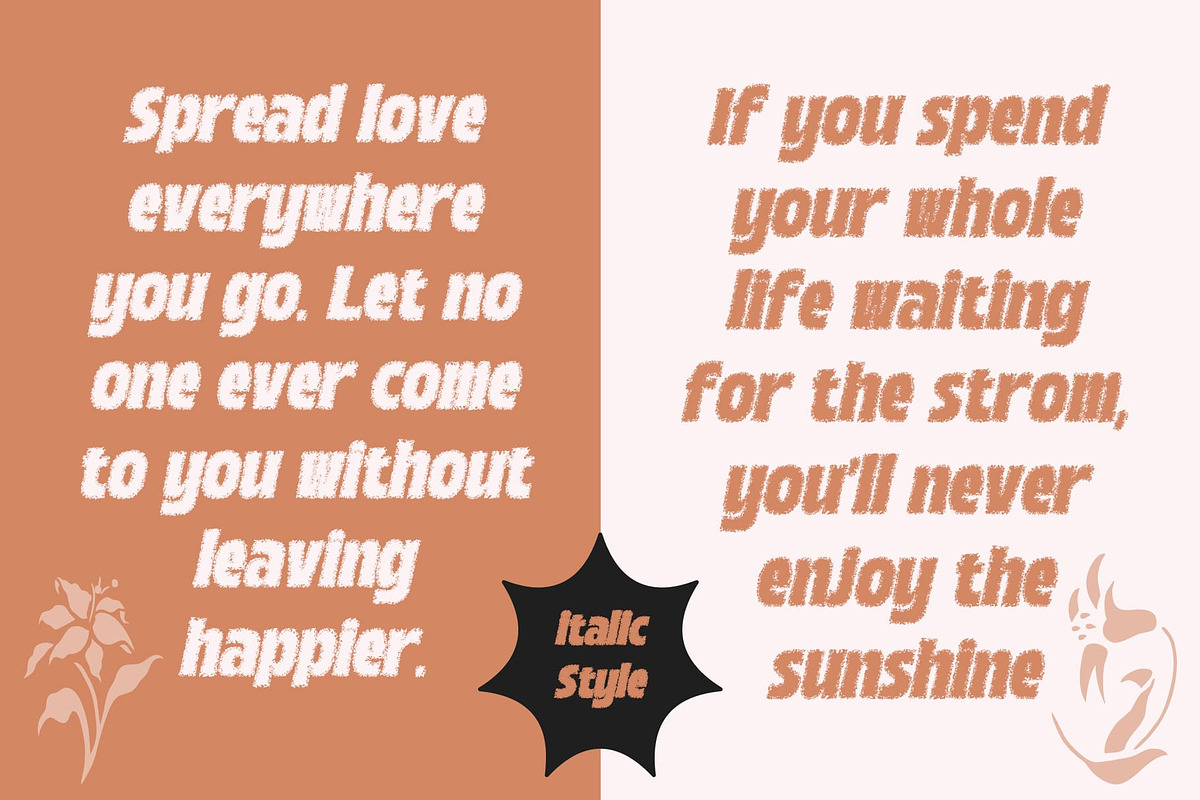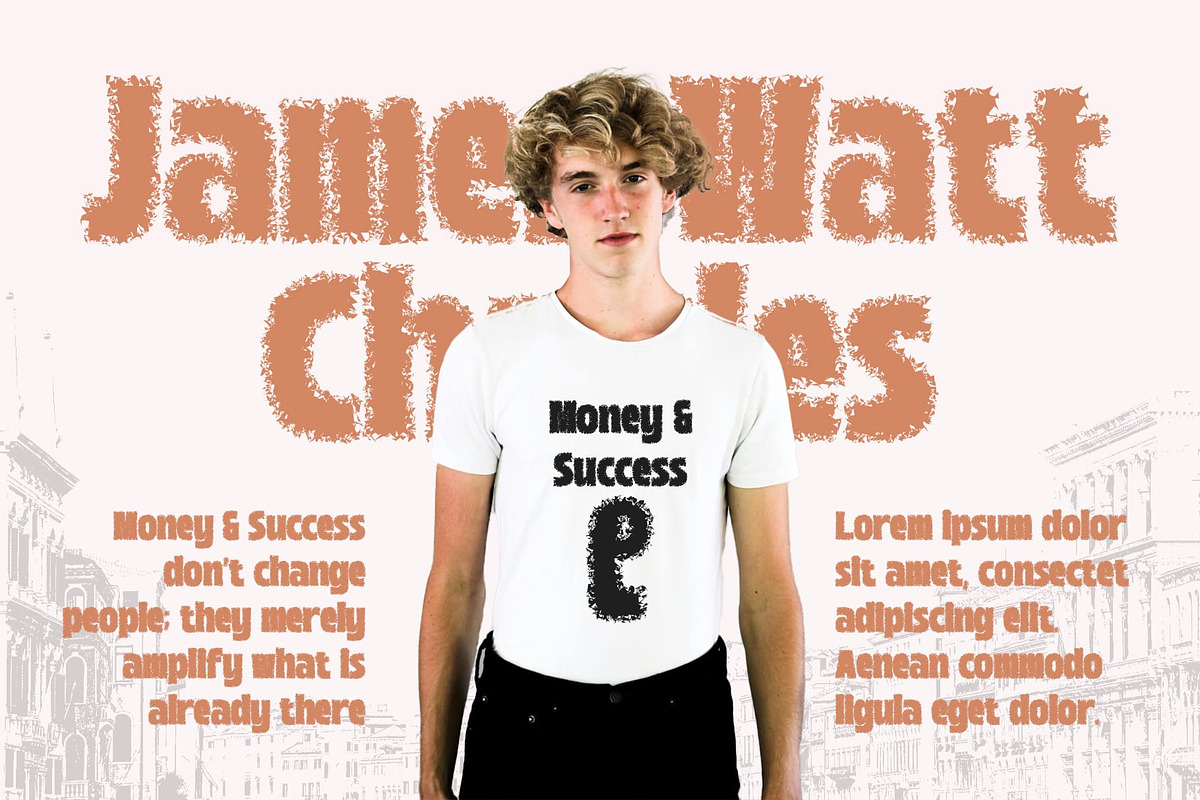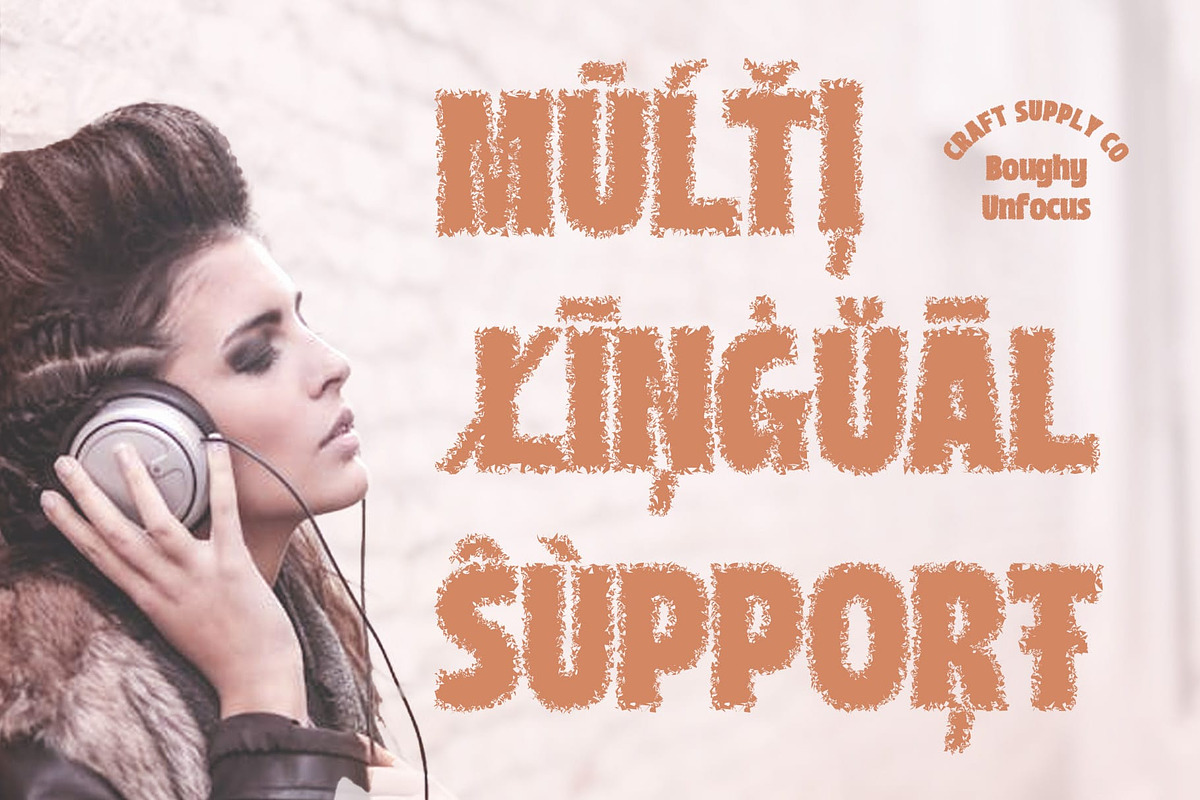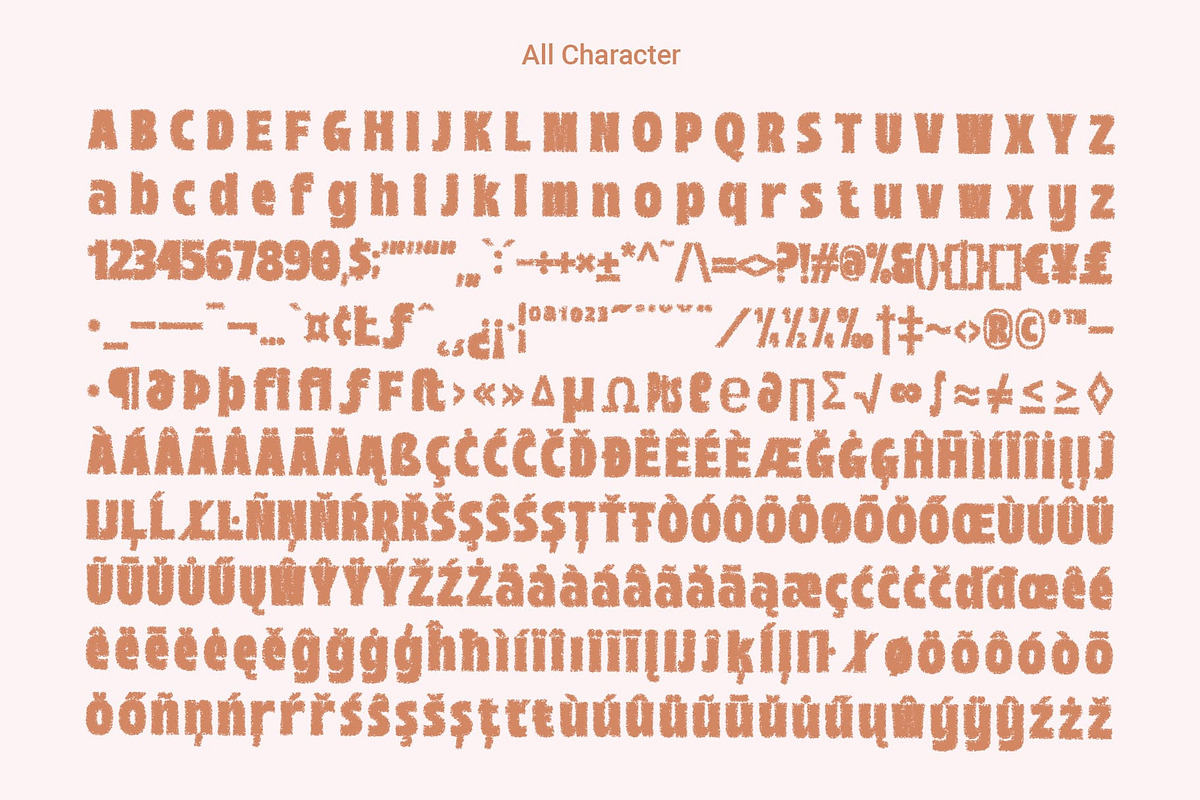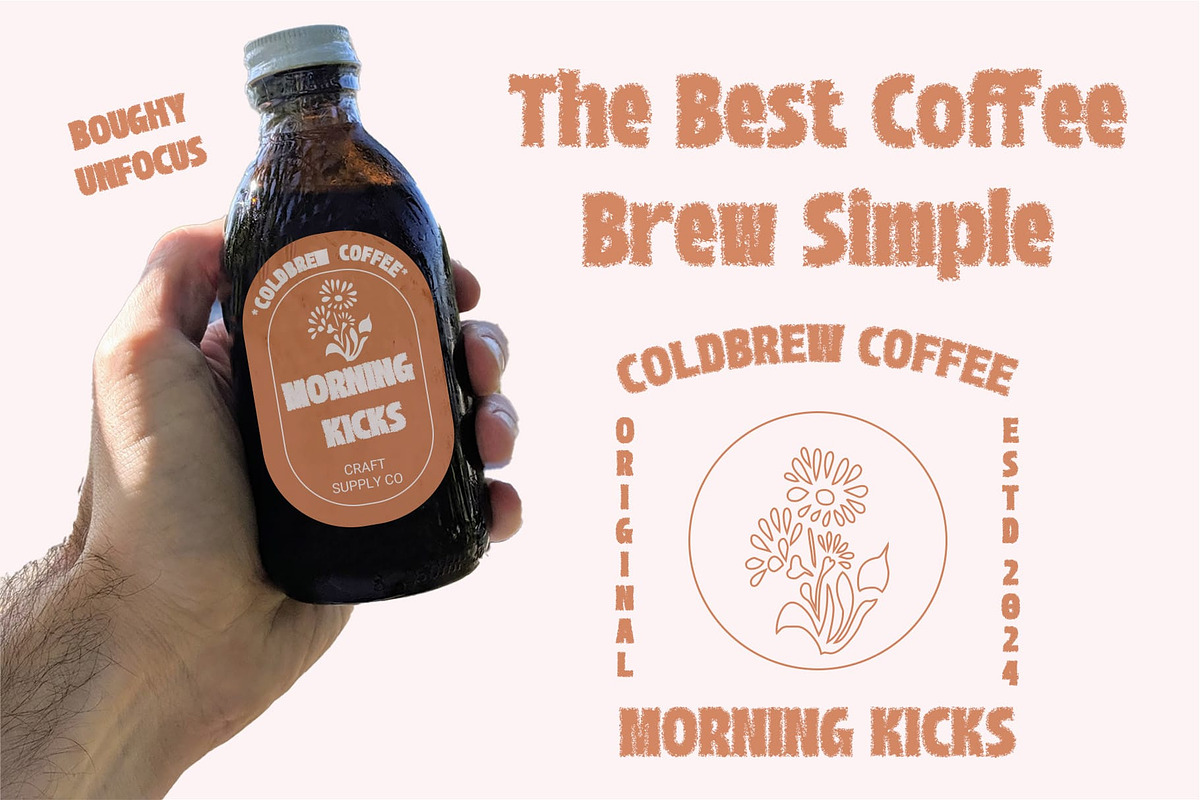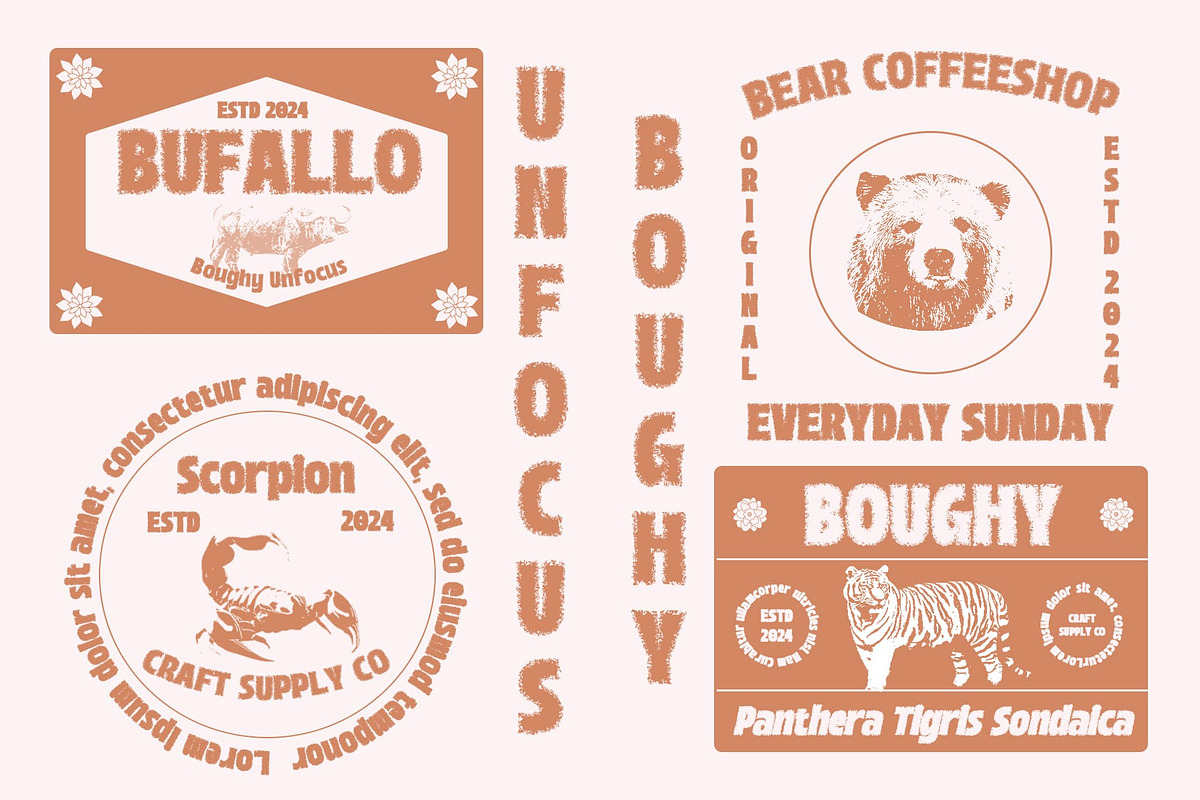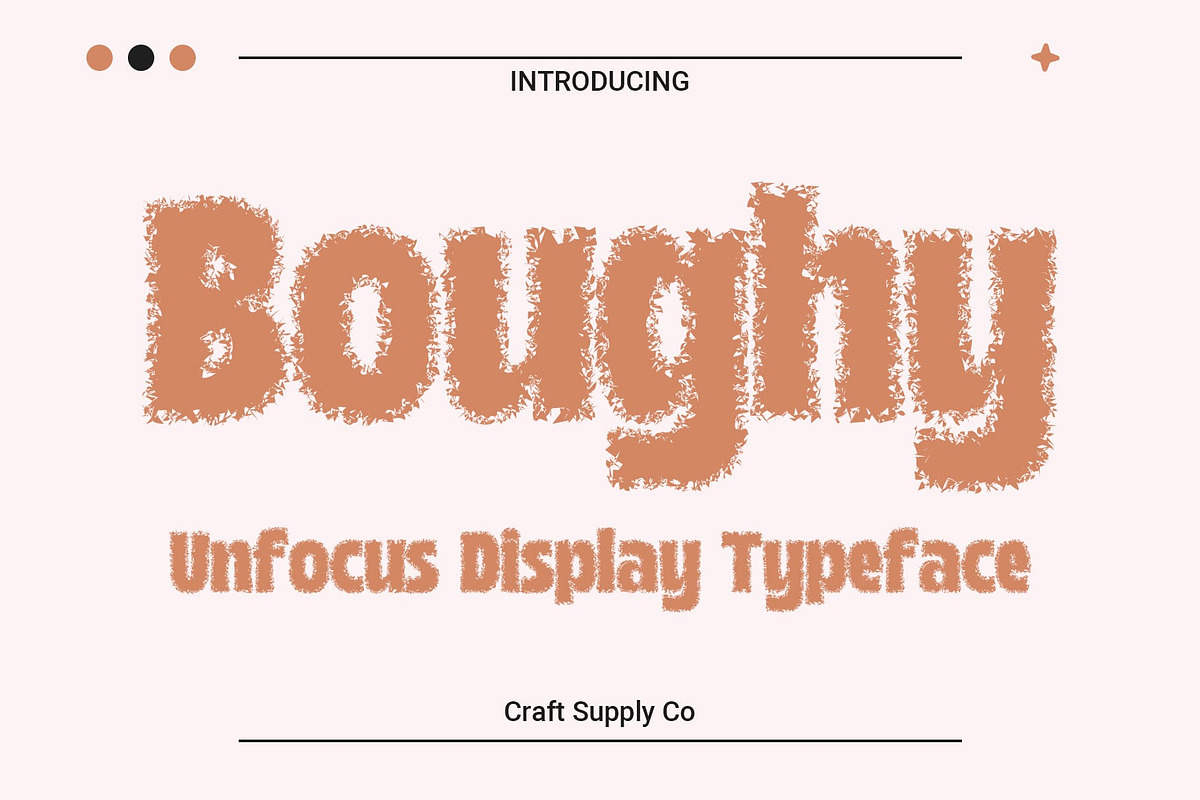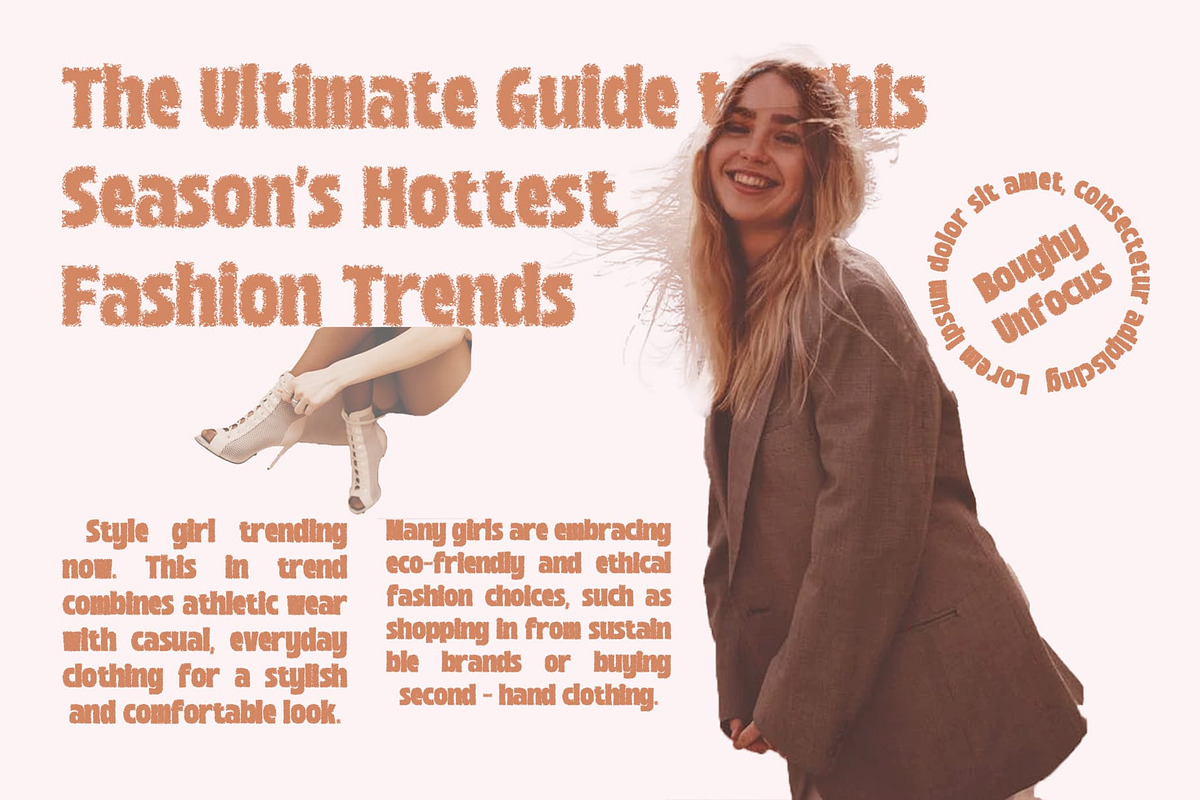
Boughy Unfocus
Boughy Unfocus: Bold and Dynamic Display Typography
Vibrant Boldness in Sans Serif Boughy Unfocus embodies the essence of boldness with its striking sans serif design. Each character commands attention with its strong, confident presence.
Unfocus Effect for Unique Appeal With its innovative unfocus effect, This font adds a unique twist to traditional display typography. The subtle blur creates an intriguing visual texture, making it perfect for eye-catching displays.
Tailored for Display Needs Crafted specifically for display purposes, This font excels in grabbing attention and conveying messages with impact. From posters to digital banners, its bold and unfocused style ensures maximum visibility.
Versatile Application Despite its boldness, This font offers versatility in application. Whether used in branding, advertising, or editorial design, its dynamic appearance adds a contemporary edge to any project.
Bold and Captivating This font stands out as a bold and captivating choice for display typography. Its combination of bold sans serif form and innovative unfocus effect offers a fresh and dynamic approach to visual communication. Step into the world of This font and make your message unmissable.